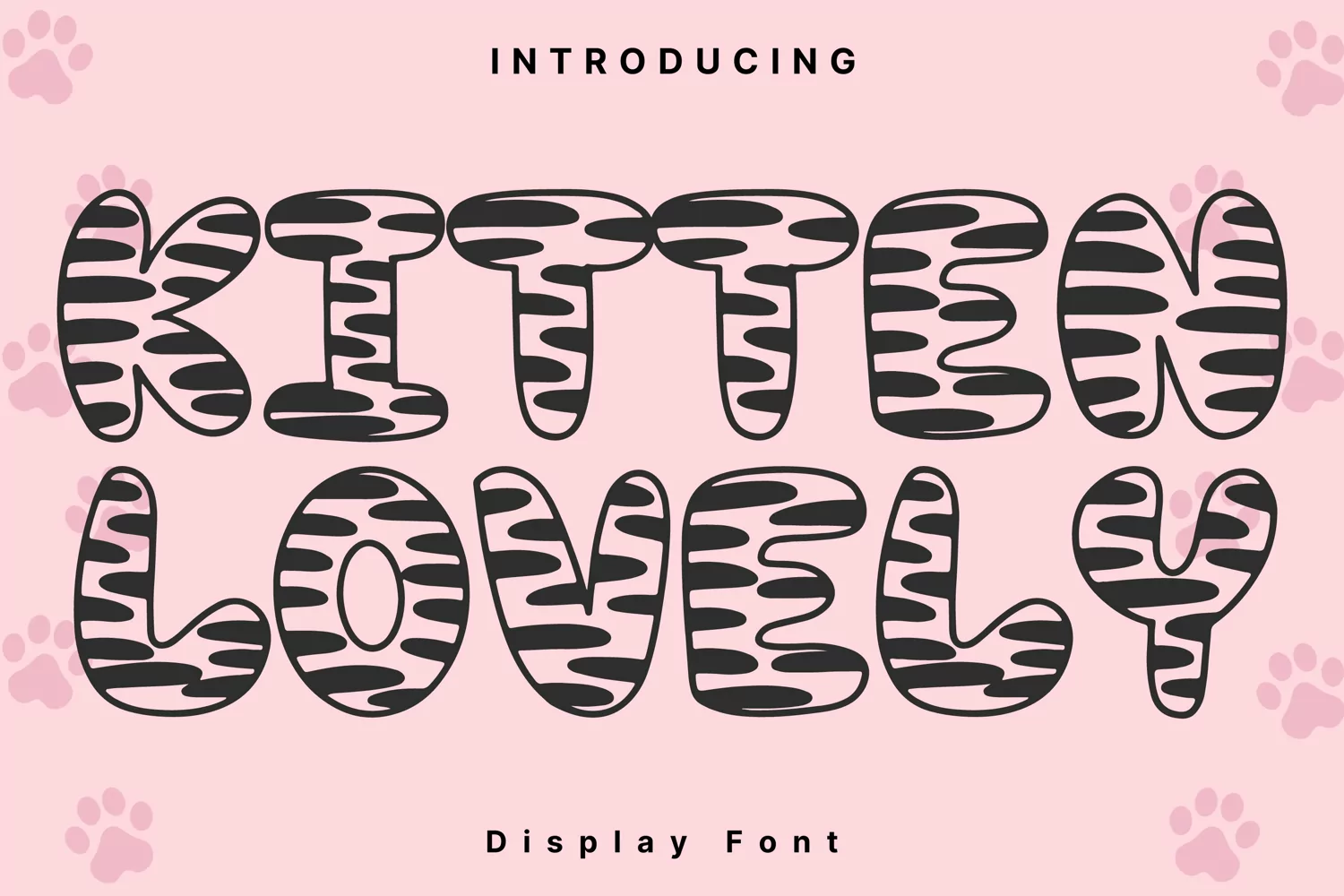
Kitten Lovely
KittenLovely
Kitten Lovely Style is a whimsical and clean handwritten font. It can easily be matched to an incredibly large set of projects, so add it to your creative ideas and notice how it makes them stand out!